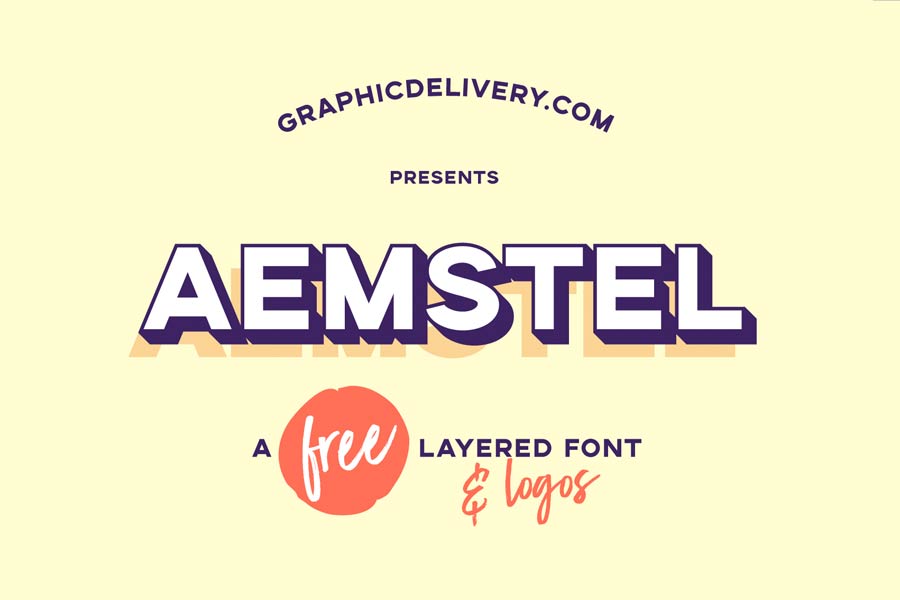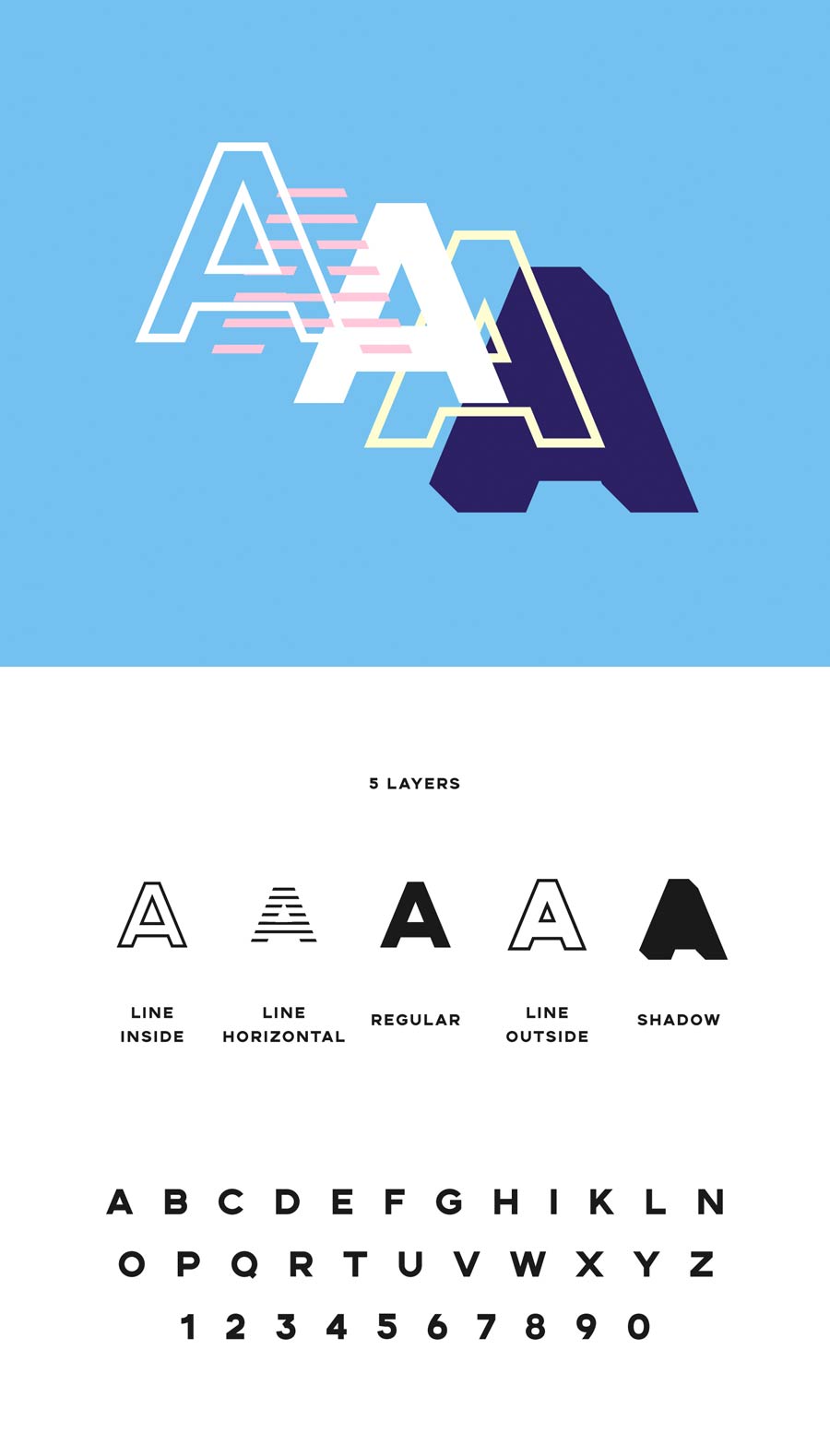
Aemstel is a display sans serif font which comes with 5 distinctive styles that you can play with. With different combinations of the styles, you can create and produce countless outcome of the type treatment.
Aemstel is highly suitable for logotypes, signages, and call outs, thanks to its highly readable and geometrical character designs. The good news is that you can use this font for both personal and commercial use!